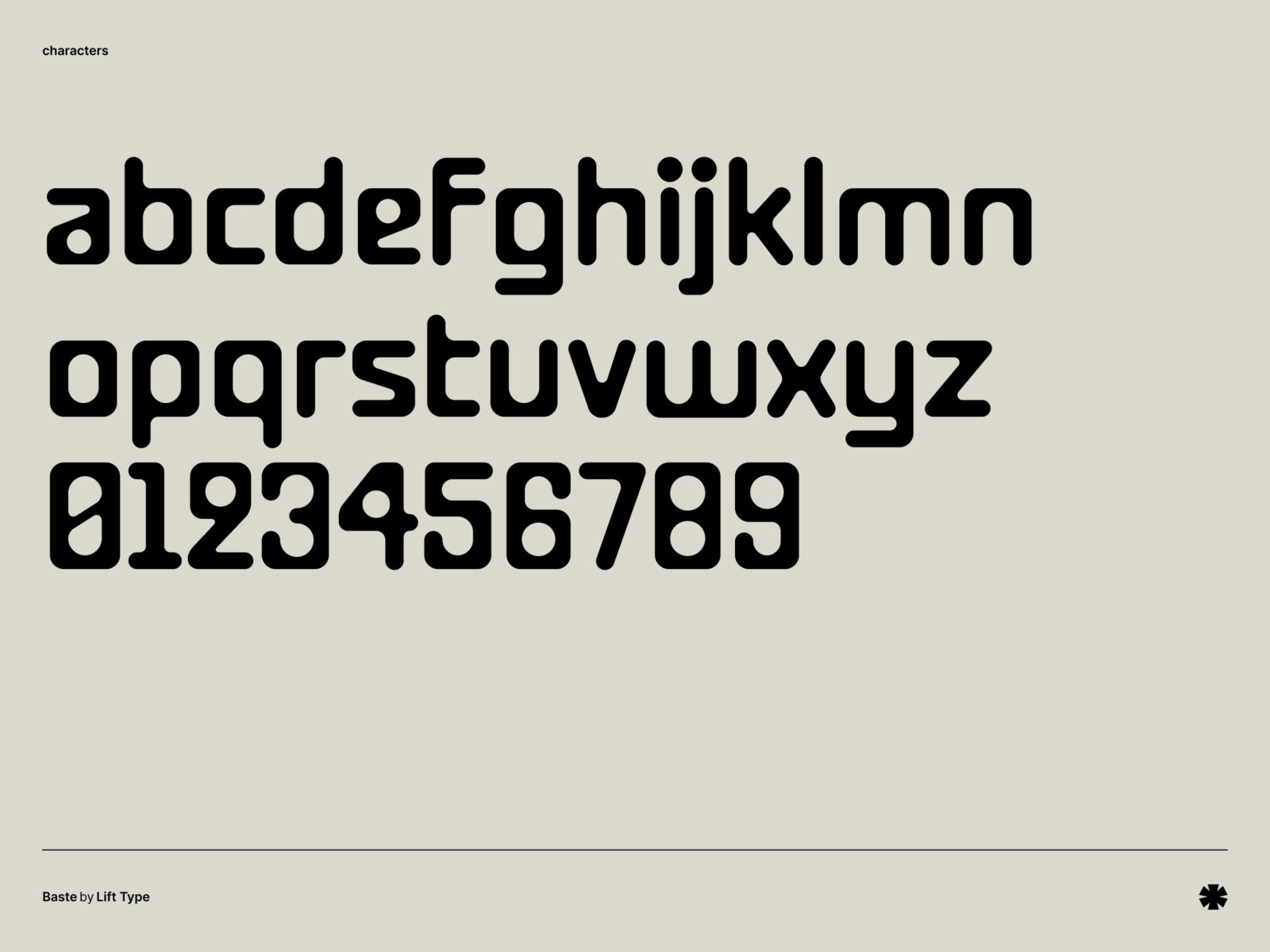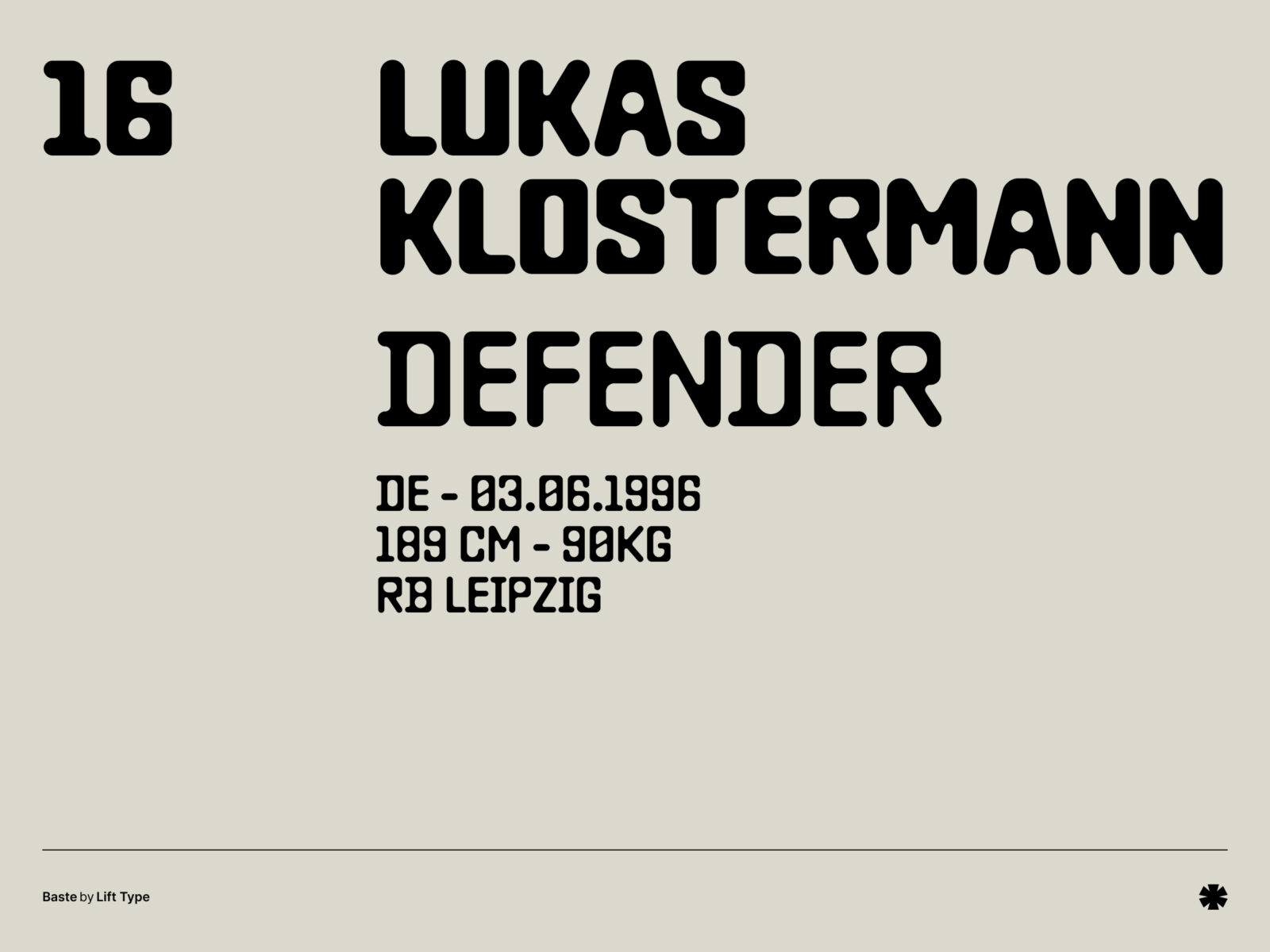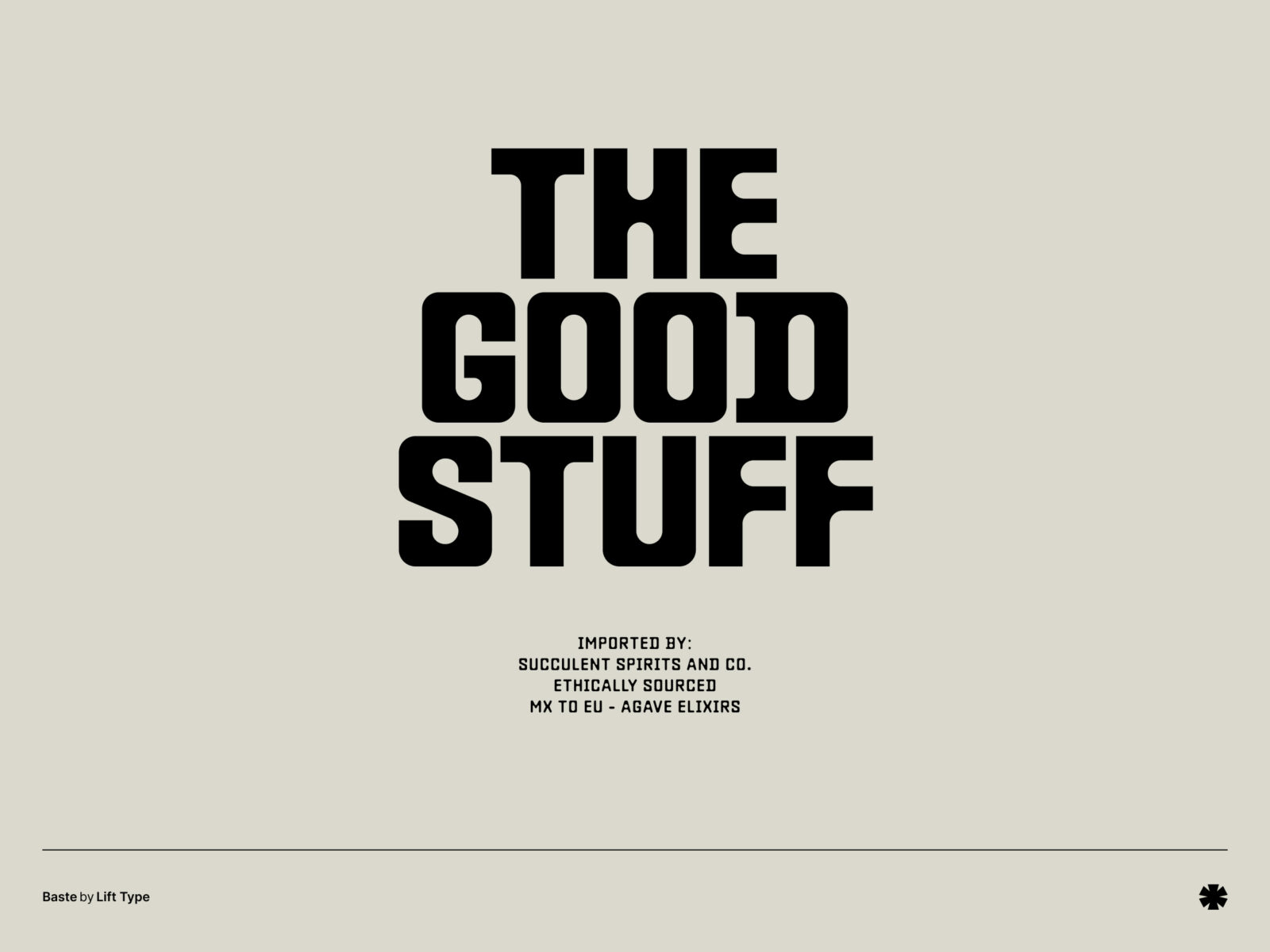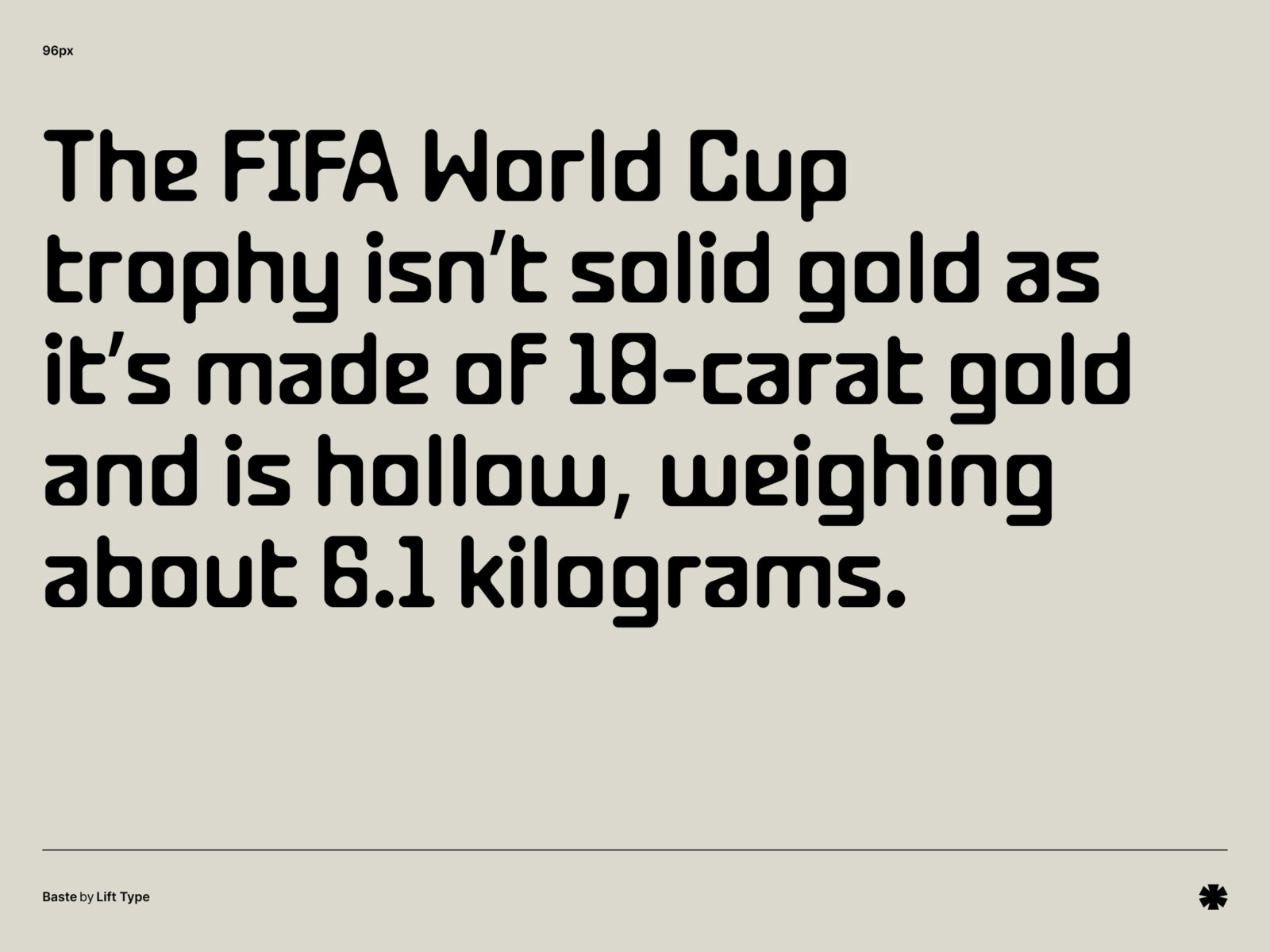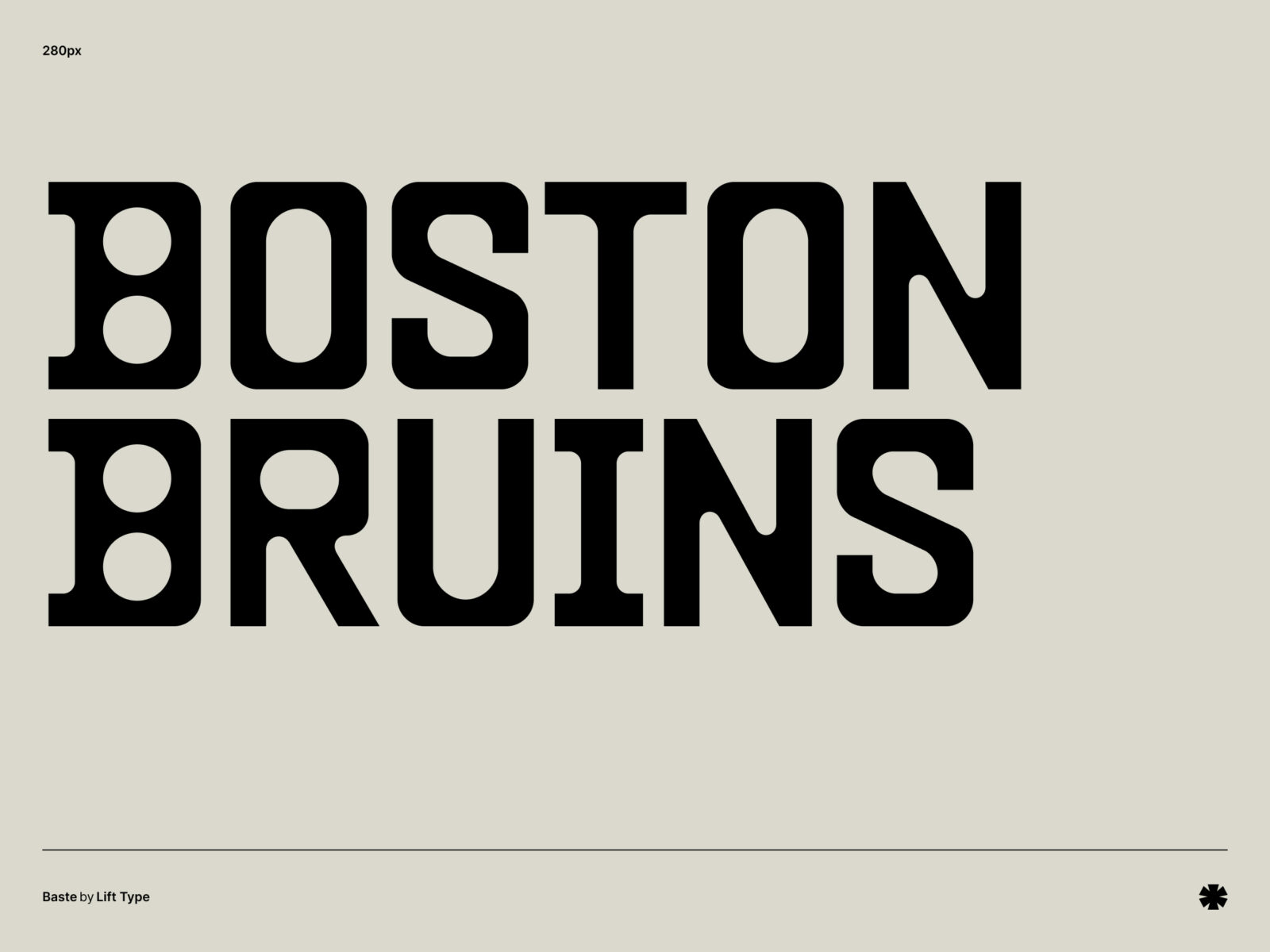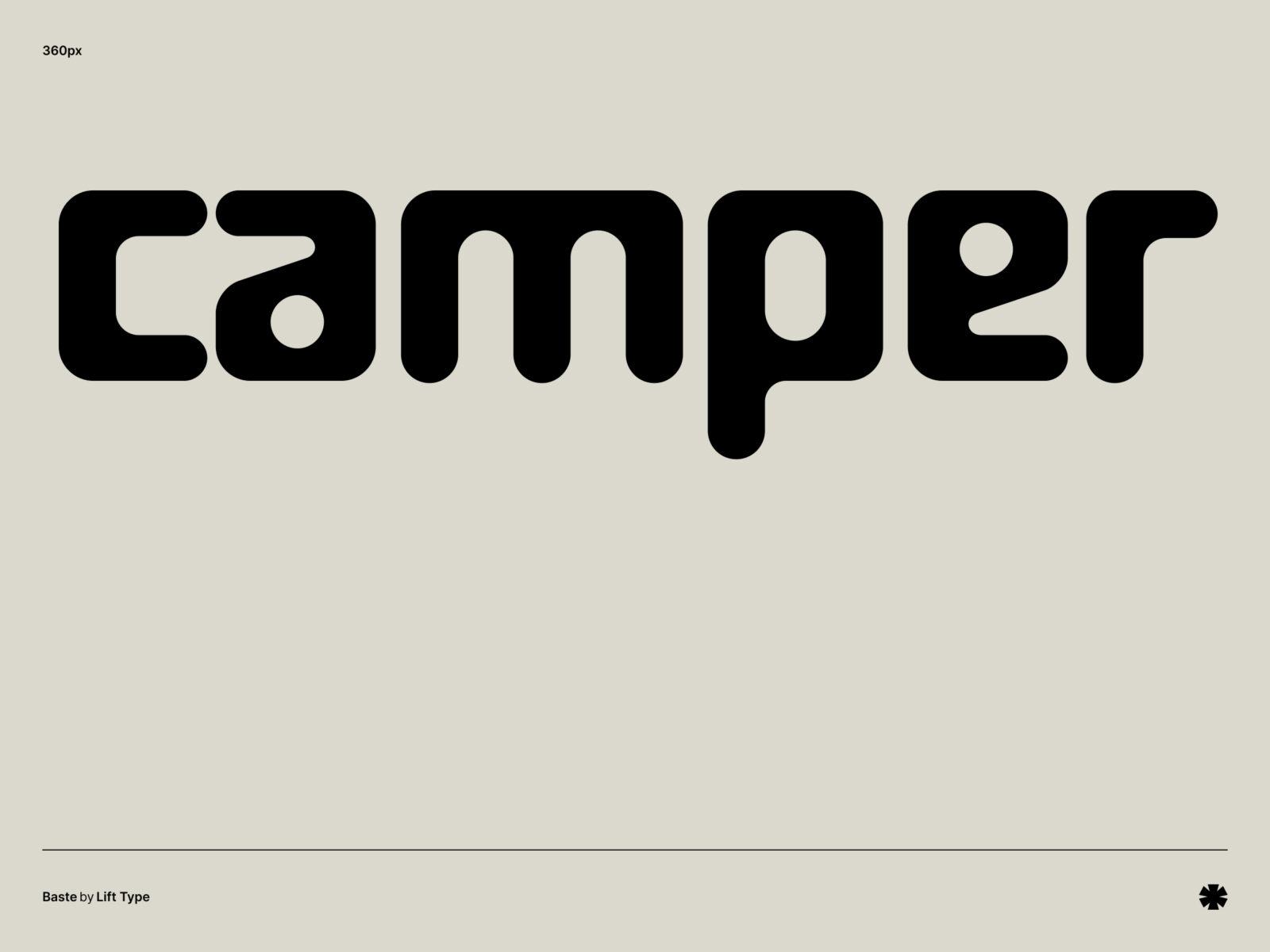
Baste takes cues from the visual culture of southern France. With two distinct versions, it moves from soft curves to tough corners while keeping a strong look.